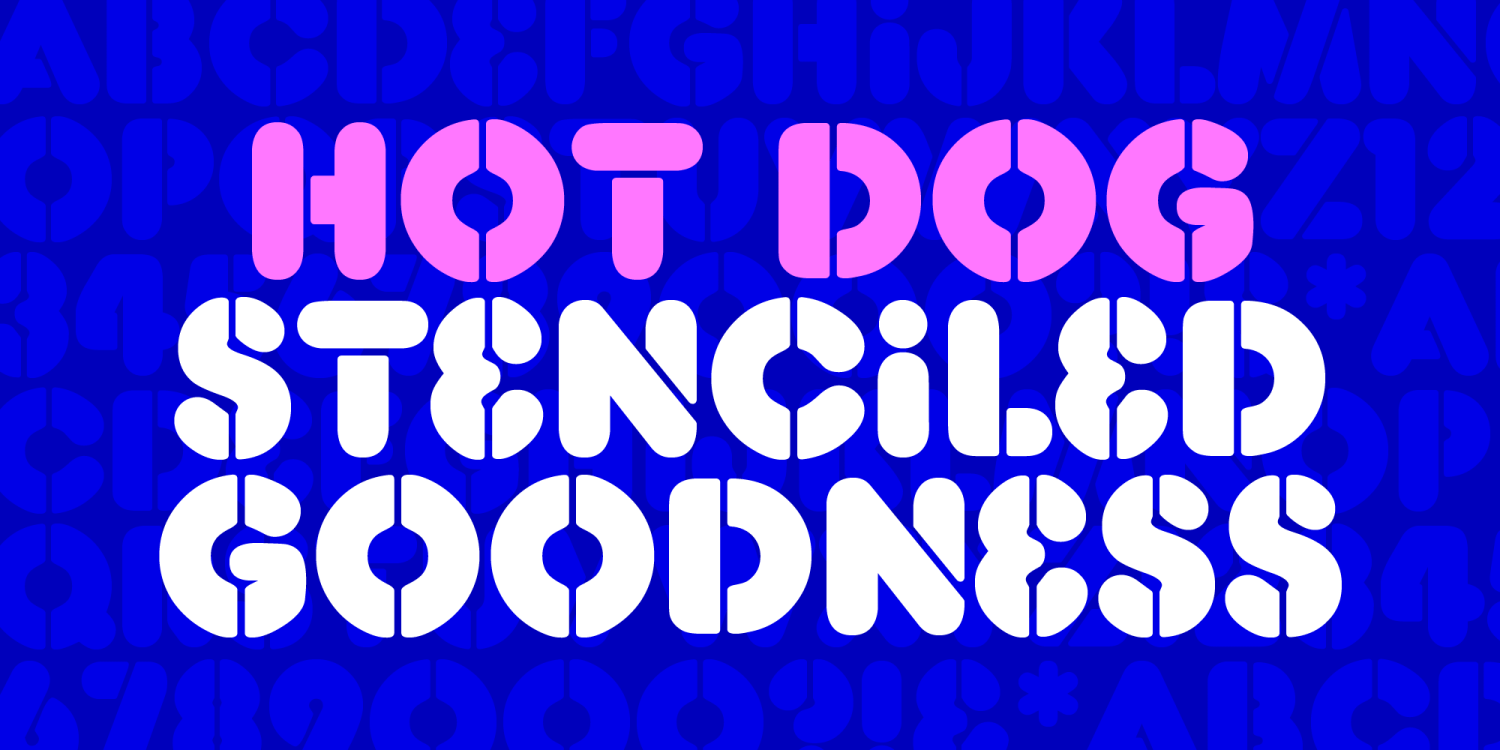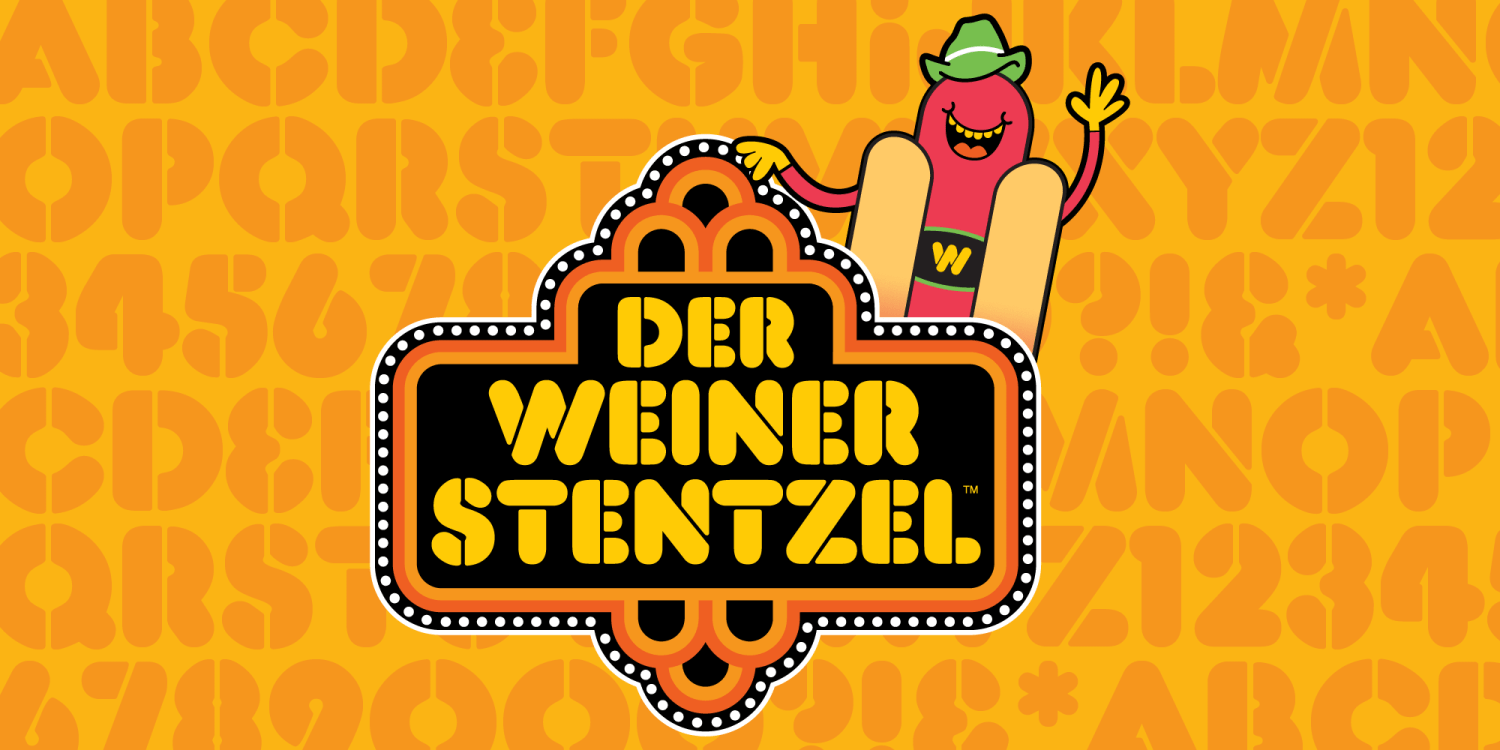
Der Weiner Stentzel
About Der Weiner Stentzel
Lately I've been realizing that I use stencil fonts for everything. People tell me to mix it up, stencil doesn't go with every design. Not only do I disagree, I suggest we go back in time where there was only one font invented. Then, I will change…